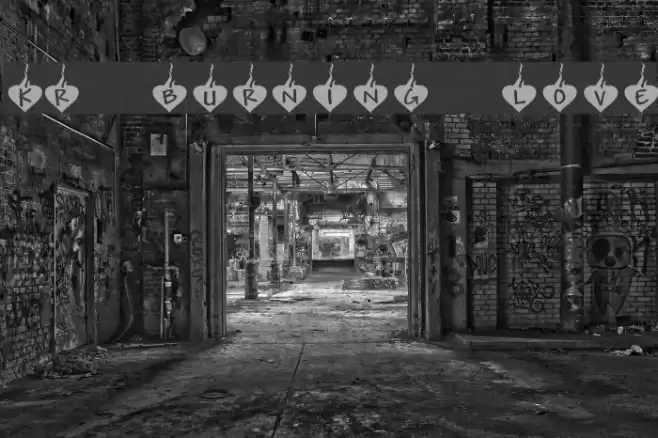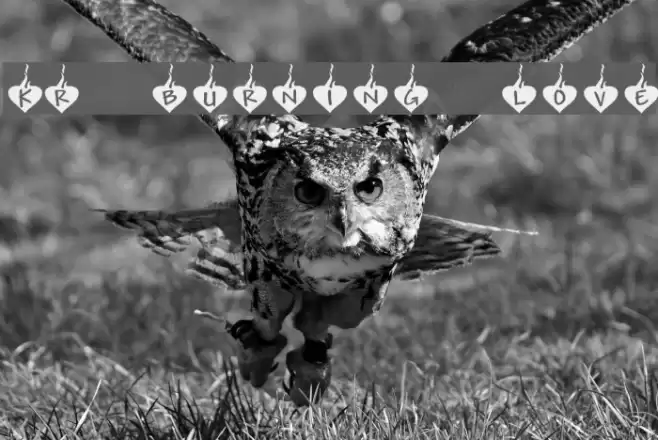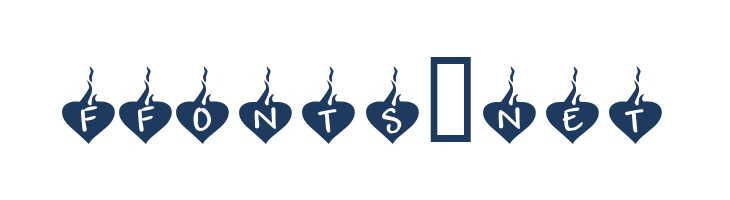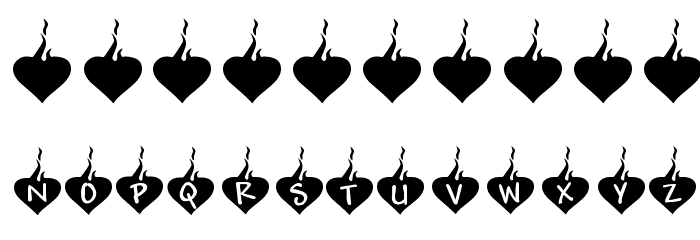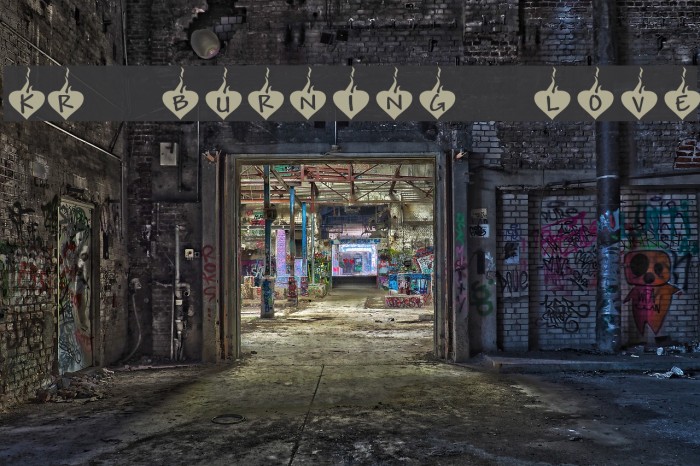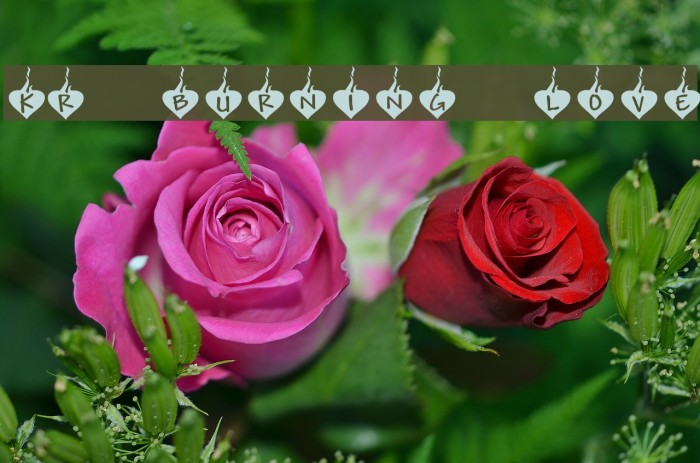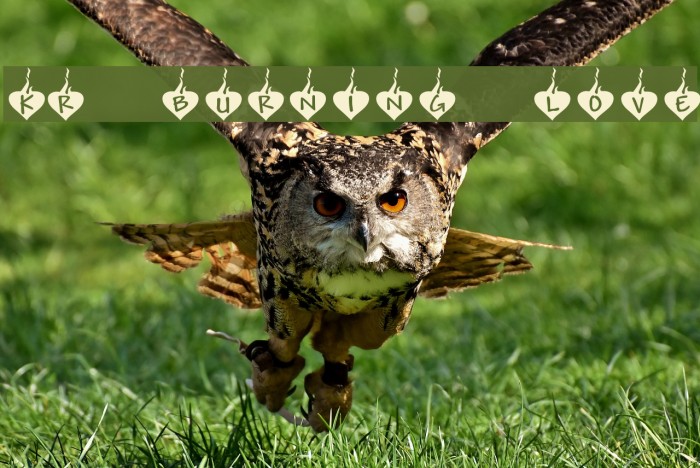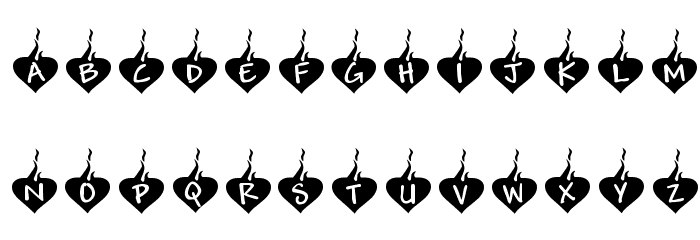
KR Burning Love Font
KR Burning Love Description
This font features a unique and playful design where each character is enclosed within a heart shape, with a whimsical flame-like accent on top. The letters are bold and rounded, creating a friendly and approachable aesthetic. The heart motif adds a romantic and decorative flair, making it ideal for projects that require a touch of love or passion. The characters are evenly spaced within their heart shapes, ensuring readability while maintaining the decorative theme. This font is perfect for creative and themed designs, particularly those related to love, romance, or Valentine's Day.
A playful, heart-themed font with bold, rounded letters and decorative flame accents from Uncategorized fonts.
- Proposed Projects: Ideal for Valentine's Day cards, wedding invitations, romantic event posters, and themed merchandise.
- Use Case: Logos, Headlines, Invitations